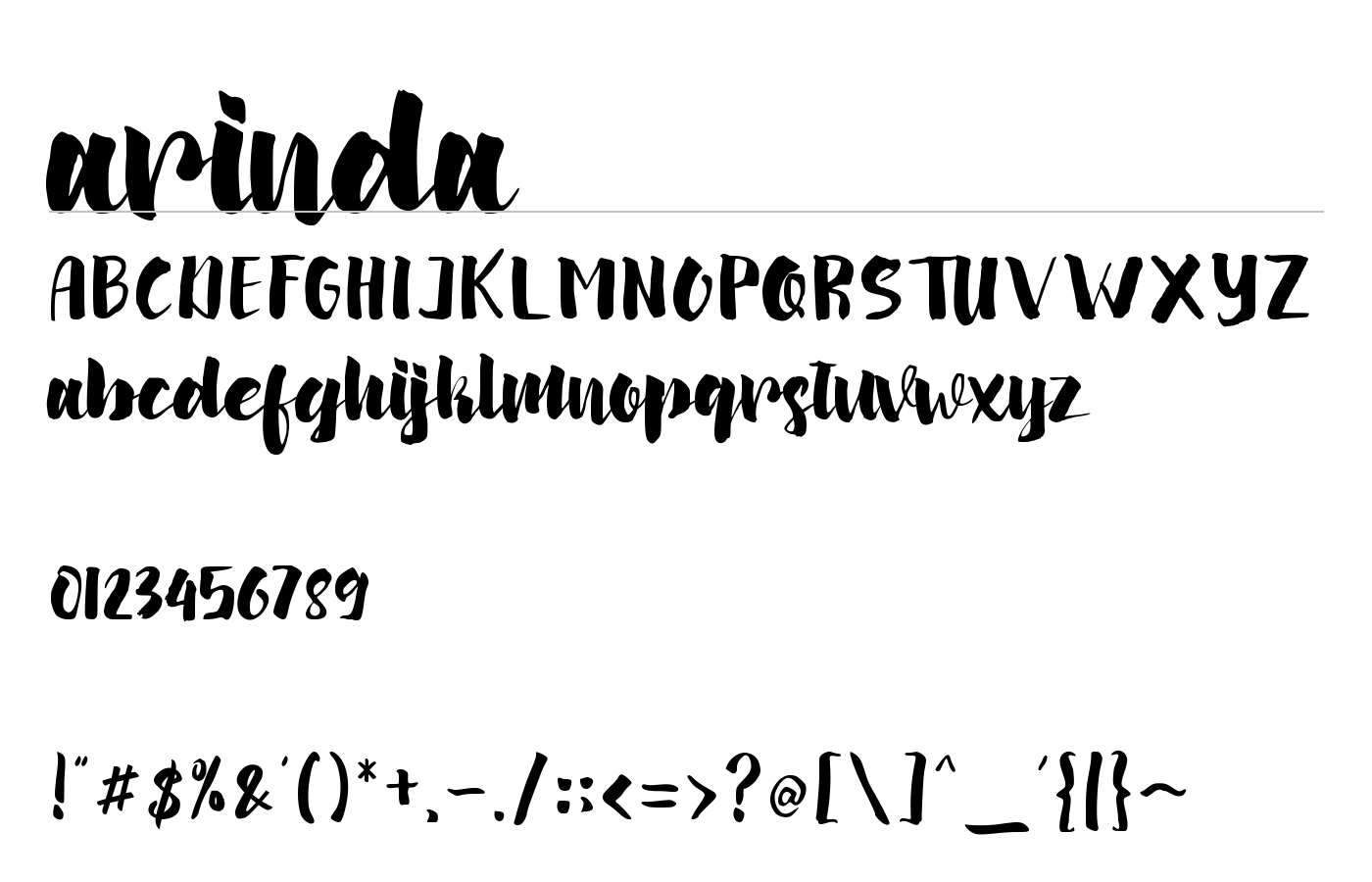
Arinda is a lively, brush-script font that combines bold, hand-painted strokes with playful irregularities, giving it a casual yet artistic feel. Its dynamic weight and slightly condensed letterforms make it perfect for creating eye-catching headlines, branding, and creative projects that seek an approachable and expressive touch. This font works well for fashion, lifestyle, and creative industries looking to convey warmth and personality.